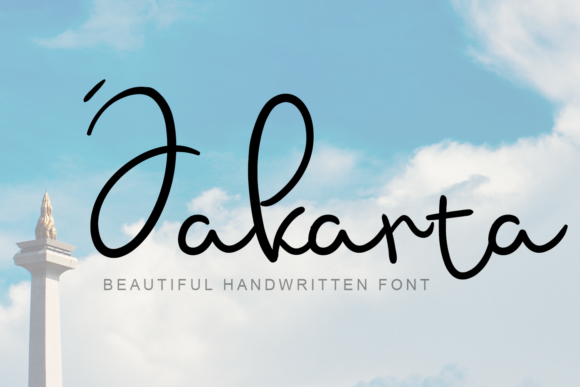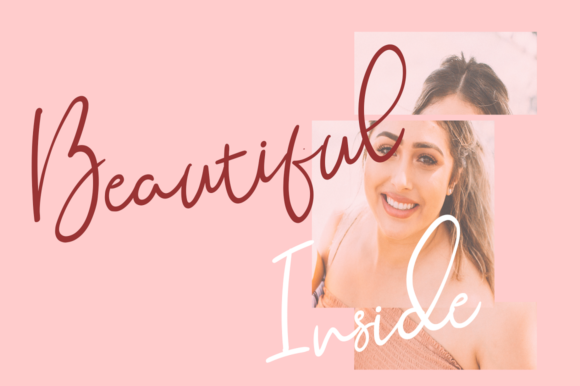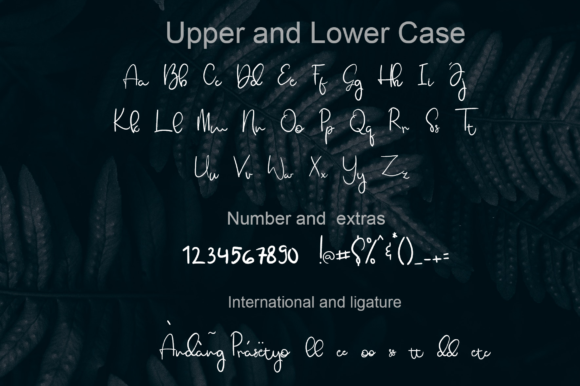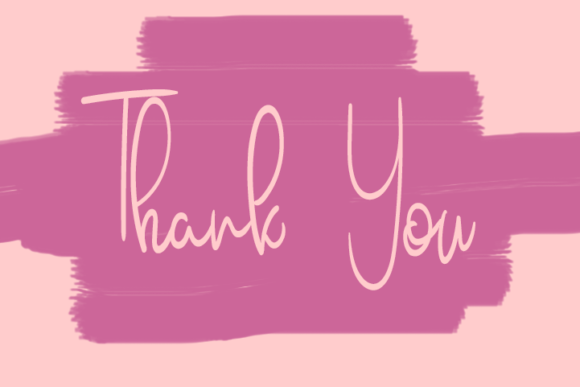
Jakarta Font
About Jakarta Font
Jakarta font is a cute and flexible handwritten font that brings a natural and unique style to a wide range of designs. With its playful charm, this font is a perfect fit for numerous creative projects. Enjoy the versatility of this beautiful font and discover its endless variations.
The Jakarta font’s cute and handwritten appearance adds a touch of whimsy to any design. Its organic strokes and charming imperfections give it a distinct character that stands out. Whether you’re creating greeting cards, social media graphics, logos, or any other design, Jakarta font brings a delightful and approachable vibe.
One of the strengths of Jakarta font lies in its flexibility. Its adaptable nature allows it to seamlessly integrate into various design styles and themes. From children’s illustrations to feminine branding, the font effortlessly enhances the overall look and feel of your projects.
With Jakarta font, you can have fun exploring the numerous variations it offers. Experiment with different letter combinations, ligatures, and swashes to create truly unique and personalized designs. Let your creativity run wild and embrace the playful possibilities this font presents.
In summary, Jakarta font is a cute and flexible handwritten font that adds a natural and unique style to a wide range of designs. Its versatility and charming appearance make it a joy to work with. Have fun with this beautiful font and explore its endless variations to create captivating and memorable designs.